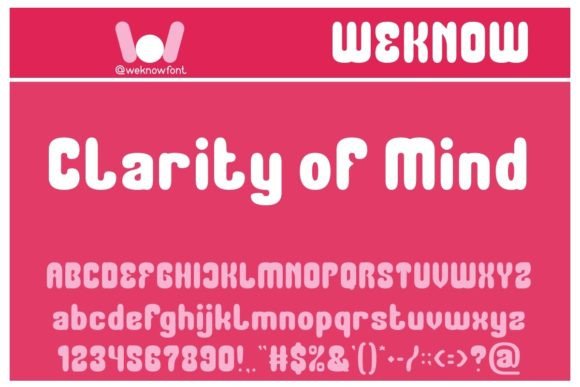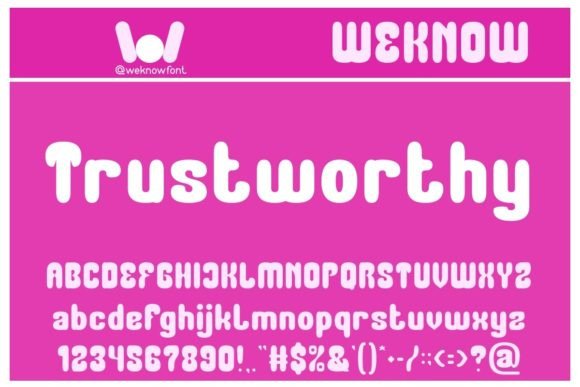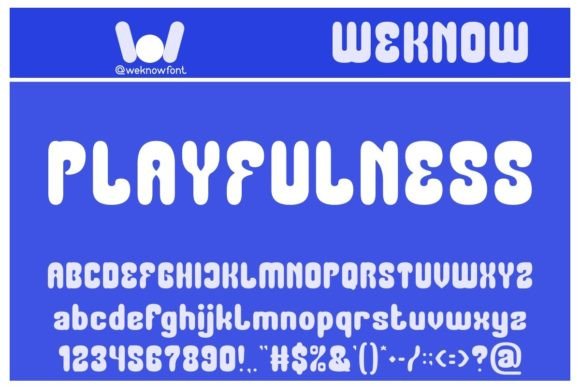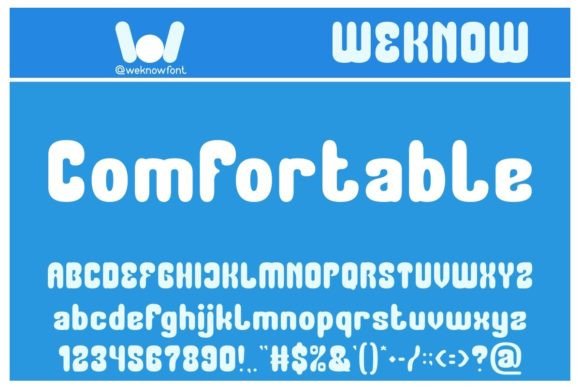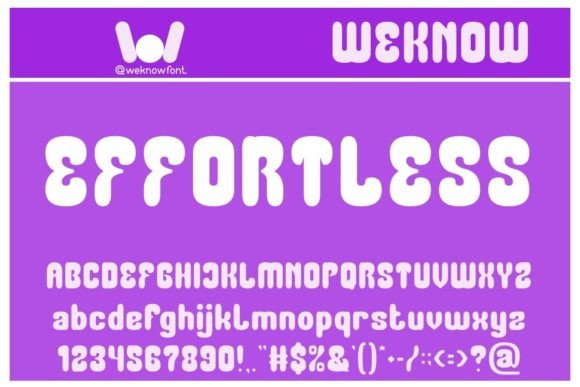
Introducing Effortless Font: Elevate Your Designs with Elegance
In the world of design, typography plays a crucial role in conveying messages, expressing creativity, and building brand identities. For designers and crafters seeking a font that exudes elegance and sophistication, look no further than Effortless Font. This stunning display font is perfect for a wide range of applications, from logos and headlines to posters, movies, and websites.
What is Effortless Font?
Effortless Font is a fancy display font designed to make a statement. Its unique and stylish letterforms are carefully crafted to add a touch of luxury and refinement to any design project. Whether you’re working on a logo, brand identity, or marketing materials, Effortless Font is the perfect choice for those who want to elevate their designs and make a lasting impression.
Key Features of Effortless Font
- Versatile: Effortless Font is suitable for a wide range of applications, including logos, logotypes, headlines, corporate identities, brand identities, apparel, posters, music, movies, games, magazines, books, comics, cartoons, YouTube, Instagram, websites, and more.
- Elegant: With its sleek and sophisticated design, Effortless Font adds a touch of elegance to any project.
- High-Quality: This font is designed with precision and attention to detail, ensuring that it looks great in any size or format.
Use Cases for Effortless Font
Effortless Font is an incredibly versatile font that can be used in a variety of design projects. Here are some examples:
- Logo Design: Create a stunning logo for your brand with Effortless Font. Its unique letterforms and elegant design make it perfect for businesses, products, or services.
- Headlines and Titles: Use Effortless Font to create eye-catching headlines and titles for posters, magazines, books, and websites.
- Brand Identity: Establish a strong brand identity with Effortless Font. Its sophisticated design makes it perfect for corporate identities, packaging, and marketing materials.
- Apparel: Add a touch of elegance to your apparel designs with Effortless Font. It’s perfect for fashion brands, t-shirts, hats, and more.
- Digital Media: Use Effortless Font in your digital media projects, such as YouTube videos, Instagram posts, and website designs.
Why Choose Effortless Font?
With so many fonts available, why choose Effortless Font? Here are a few reasons:
- Unique Design: Effortless Font has a unique and stylish design that sets it apart from other fonts.
- High-Quality: This font is designed with precision and attention to detail, ensuring that it looks great in any size or format.
- Versatility: Effortless Font is suitable for a wide range of applications, making it a great addition to any designer’s toolkit.
Tips for Using Effortless Font
Here are a few tips for using Effortless Font in your design projects:
- Pair it with Other Fonts: Effortless Font looks great when paired with other fonts. Try pairing it with a sans-serif font for a modern look or a serif font for a more traditional look.
- Experiment with Sizes: Effortless Font looks great in a variety of sizes. Experiment with different sizes to find the one that works best for your project.
- Use it Sparingly: While Effortless Font is a beautiful font, it can be overwhelming if used too much. Use it sparingly to create a lasting impression.
Effortless Font is a stunning display font that can elevate any design project. Its unique and stylish letterforms, versatility, and high-quality design make it a great addition to any designer’s toolkit. Whether you’re working on a logo, headline, or website, Effortless Font is the perfect choice for those who want to add a touch of elegance and sophistication to their designs.